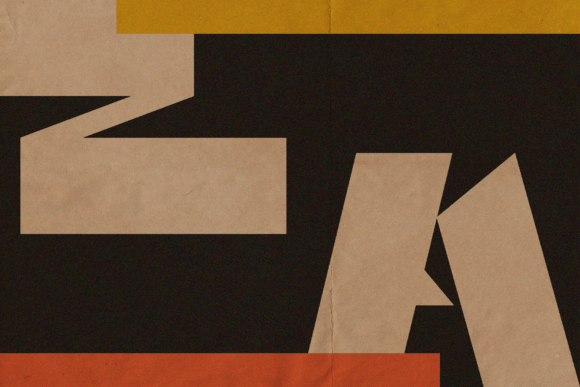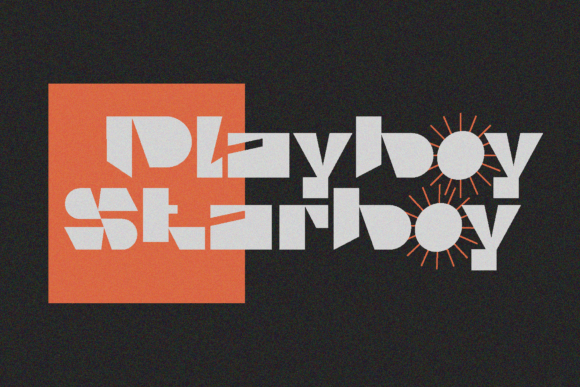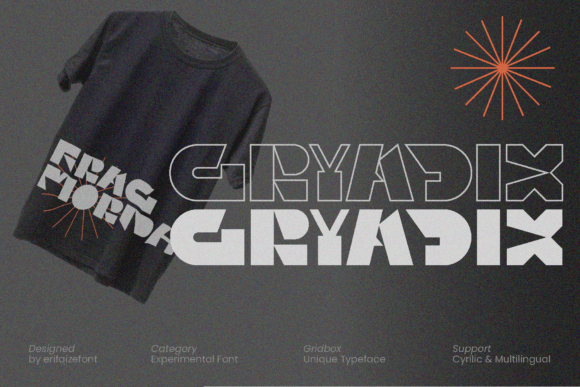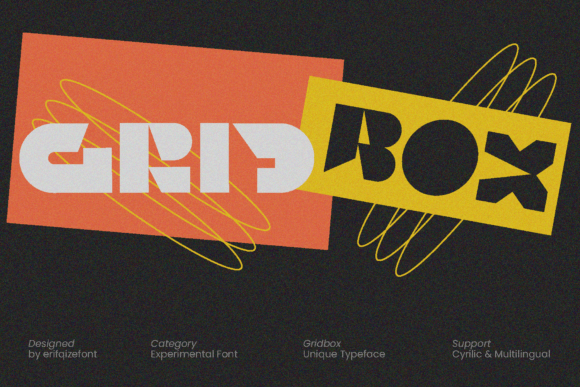
Introduction to Gridbox Font
Gridbox is an experimental typeface that stands out with bold and distinctive characters.
Designed with a unique approach, each glyph carries a strong, unconventional personality, blending sharp geometry with innovative form The result is a modern, edgy font perfect for projects that demand visual impact and originality.